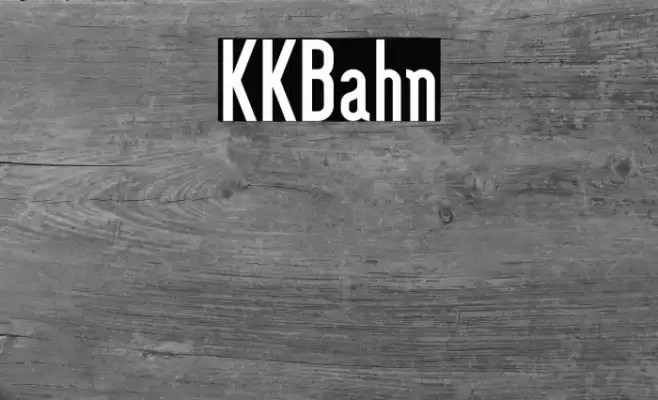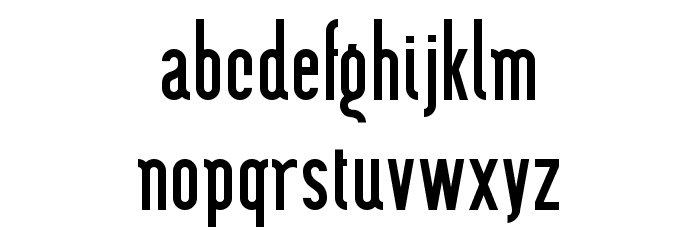
KKBahn Font
This font features a bold and modern sans-serif style with clean, straight lines and a slightly condensed appearance. The uppercase letters are tall and commanding, while the lowercase letters maintain a consistent height, providing a harmonious balance. The numerals are clear and easy to read, making them suitable for various applications. Special characters are well-defined, ensuring versatility in design projects. The overall look is sleek and professional, ideal for making a strong visual impact.
A bold, modern sans-serif font with a slightly condensed style from Uncategorized fonts.
- Proposed Projects: Ideal for branding, advertising, headlines, and digital media where a strong, modern presence is desired.
- Use Case: Headlines, Logos, Branding